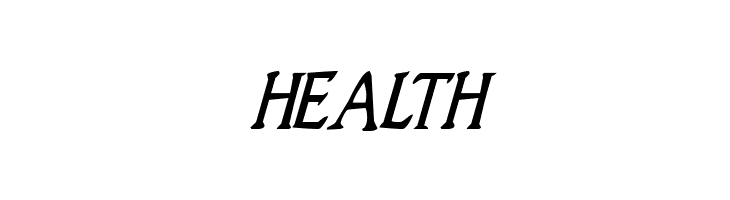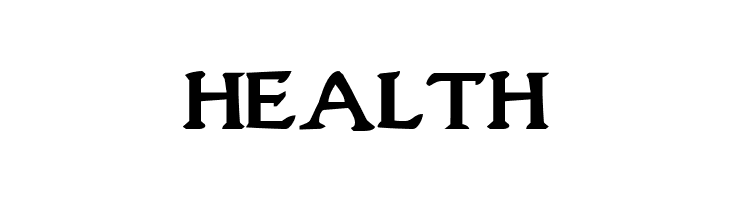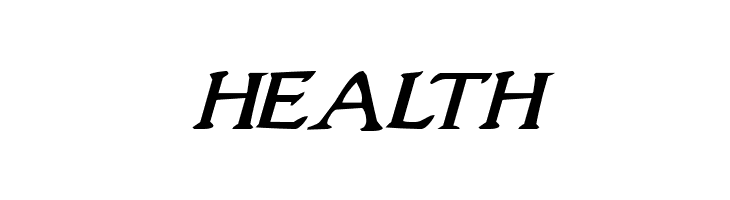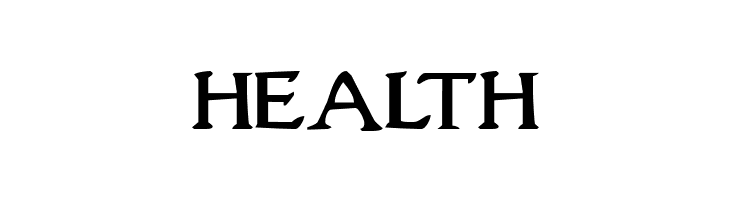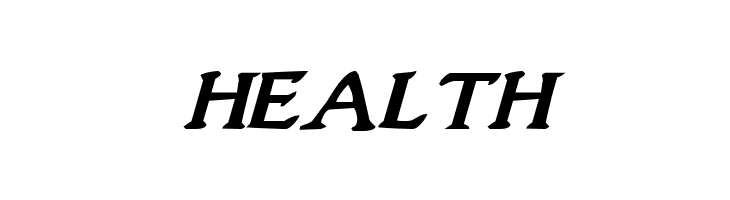
• Woodgod Bold Condensed Italic
A bold, condensed, and italic font with dynamic strokes and tight spacing.
• Woodgod Bold Expanded
A bold, expanded decorative font with unique serifs and playful curves.
• Woodgod Bold Expanded Italic
A bold, expanded, and italic font with a dynamic and elegant style.
• Woodgod Bold Italic
A bold, italicized font with dynamic and flowing letterforms.
• Woodgod Condensed
A decorative, condensed serif font with artistic and whimsical elements.
• Woodgod Condensed Italic
A dynamic, condensed italic font with elegant, flowing characters.
• Woodgod Expanded
A decorative font with medieval and fantasy influences, featuring bold, expanded characters.
• Woodgod Expanded Italic
An expressive italic font with expanded letterforms and fluid strokes.
• Woodgod Italic
An elegant italic font with calligraphic influences and moderate stroke contrast.
• Woodgod Leftalic
A bold, artistic font with a leftward slant and decorative elements.